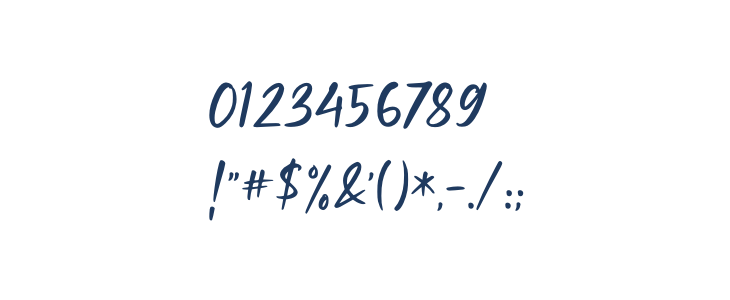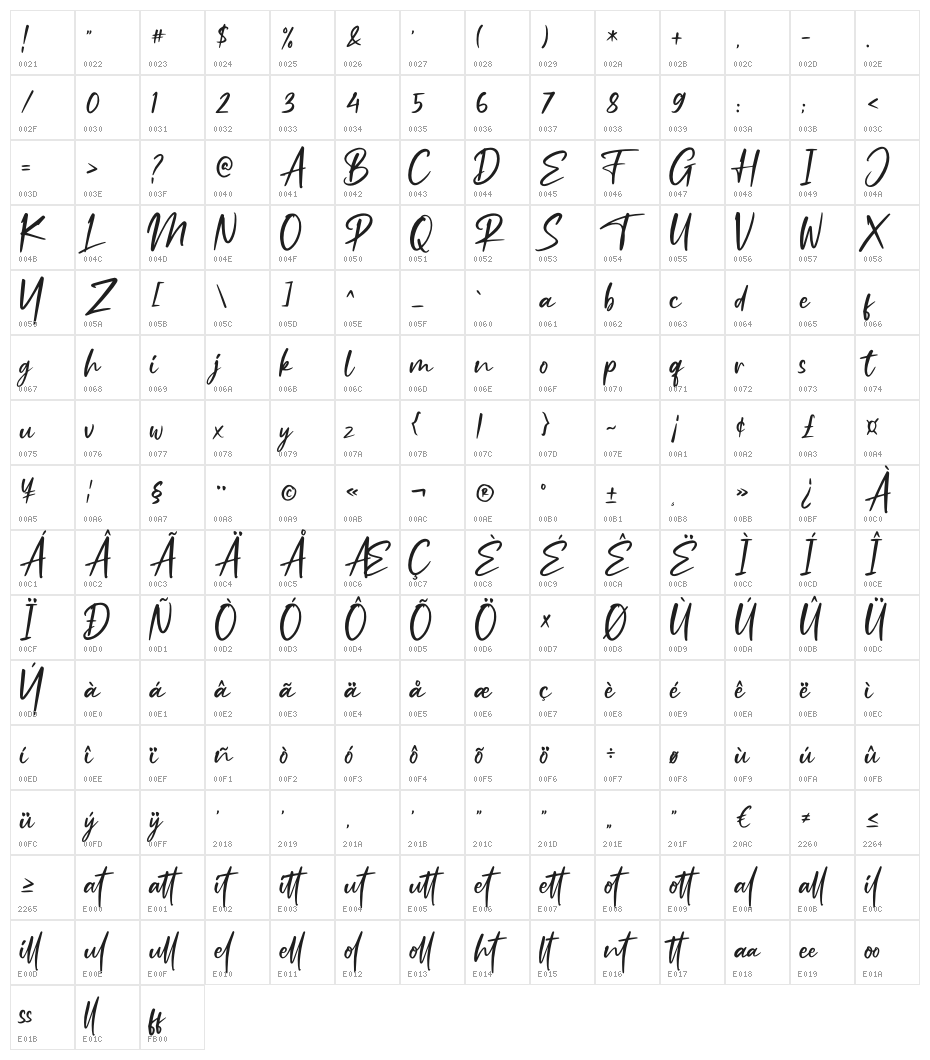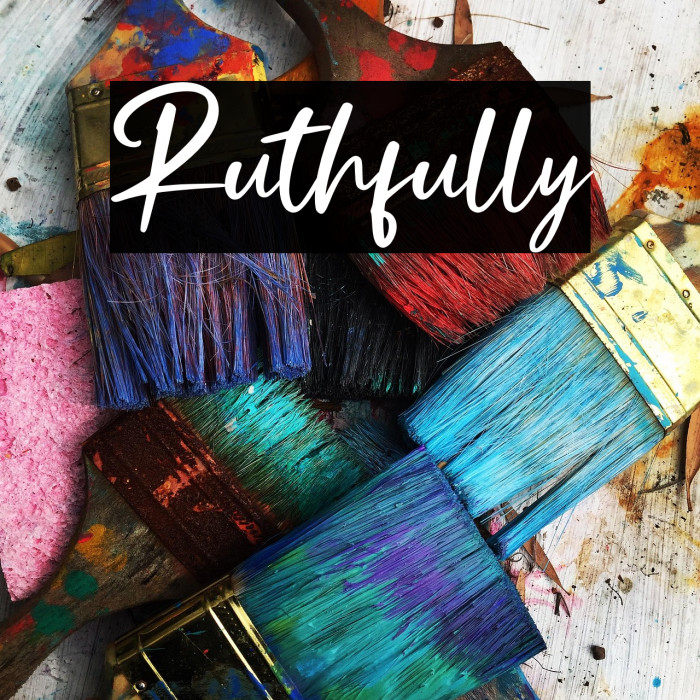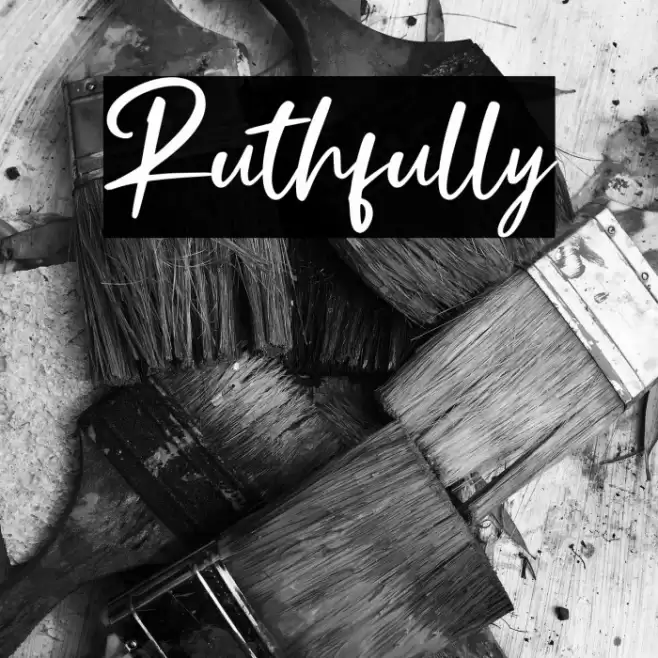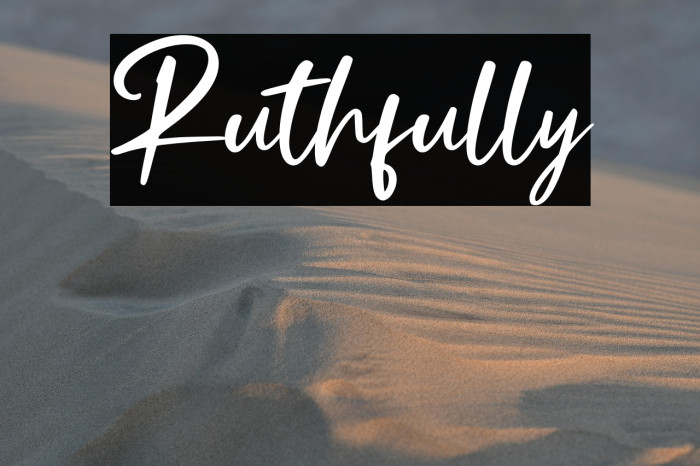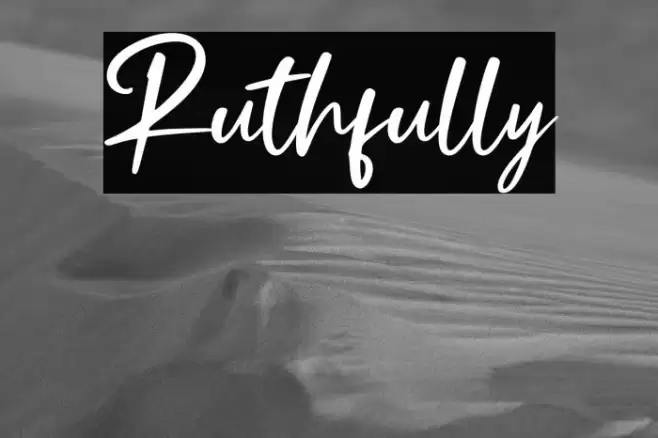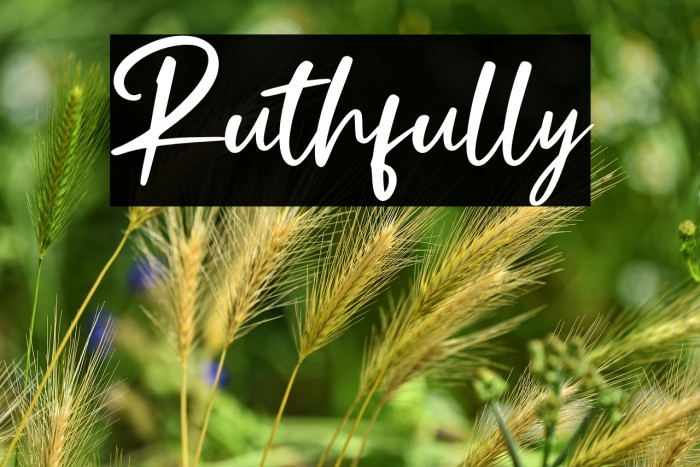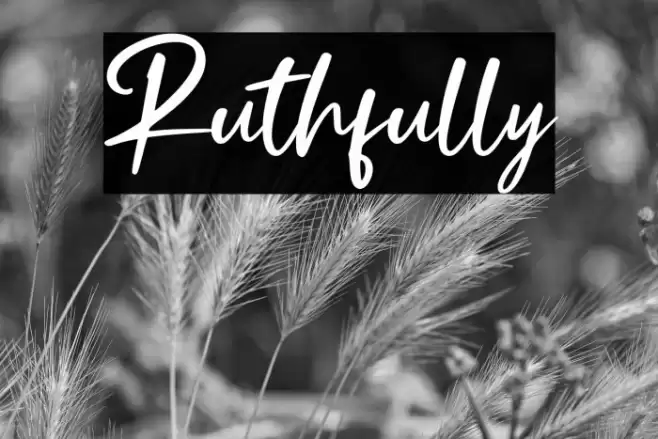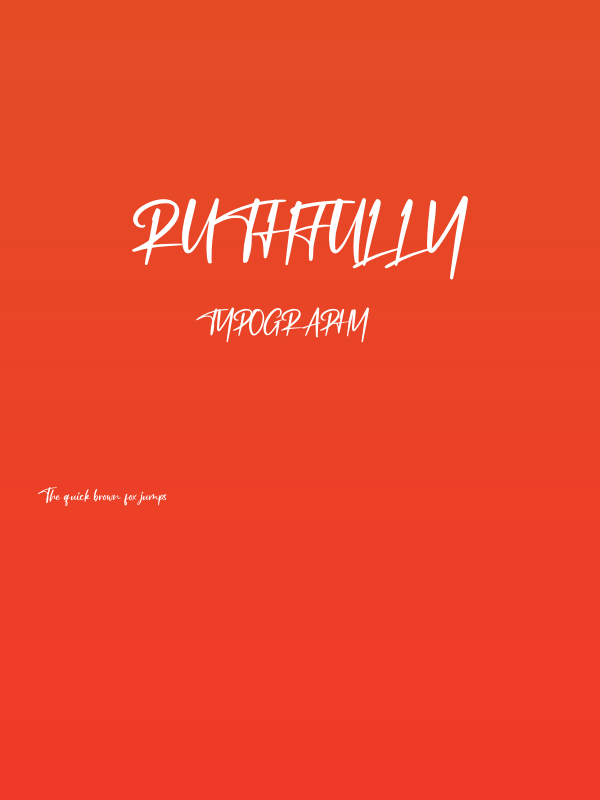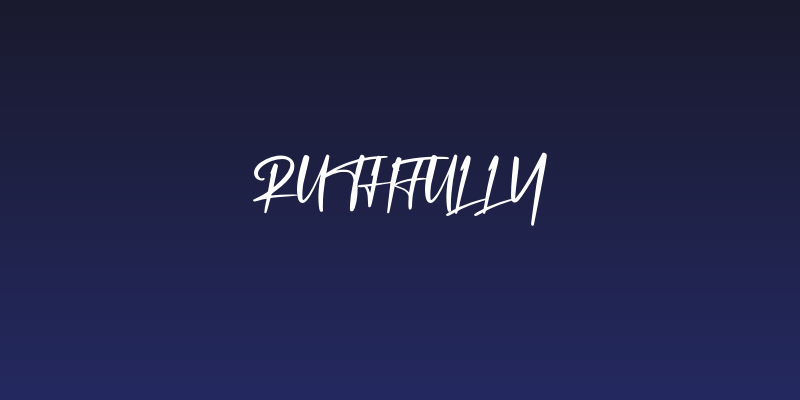
Ruthfully Font
Ruthfully Description
This font exudes a lively and dynamic energy with its handwritten style, characterized by fluid, sweeping strokes that give it a sense of motion and personality. The uppercase letters are bold and expressive, with varying stroke widths that add a playful touch. The lowercase letters maintain this energetic feel, with a slightly more compact form that ensures legibility. Numbers and special characters are crafted with the same attention to detail, making them seamlessly integrate with the alphabet. This font's overall appearance is both modern and artistic, making it suitable for a variety of creative applications.
| Proposed Projects | Ideal for branding projects, invitations, greeting cards, and social media graphics where a personal touch is desired. |